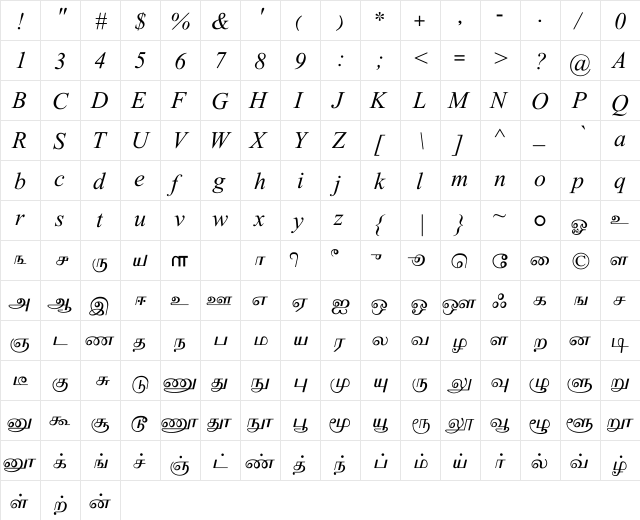
TimesTSC Normal
Design Context for TimesTSC Typeface
TimesTSC offers clean, dependable letterforms without strong stylistic allegiance, making it a practical choice for designers who need flexibility.